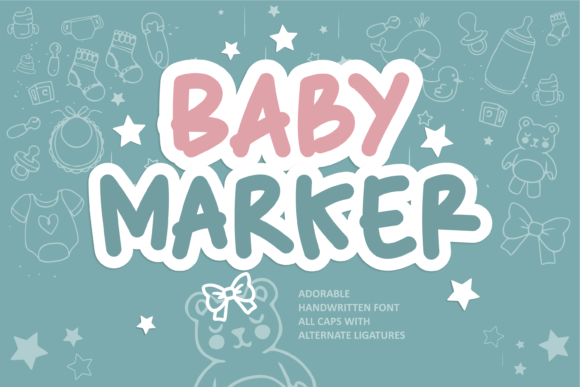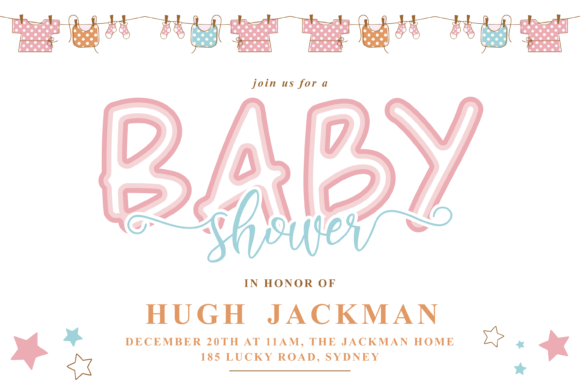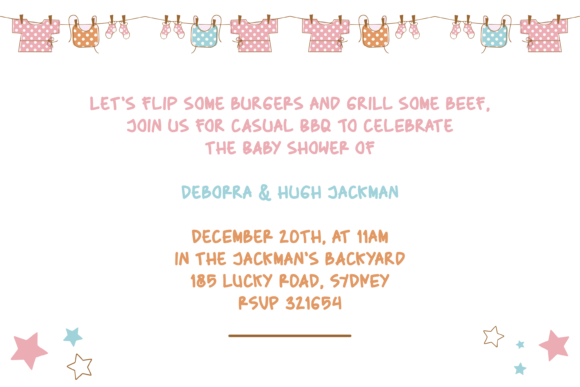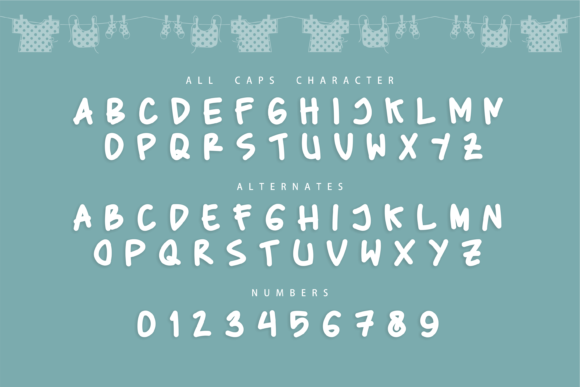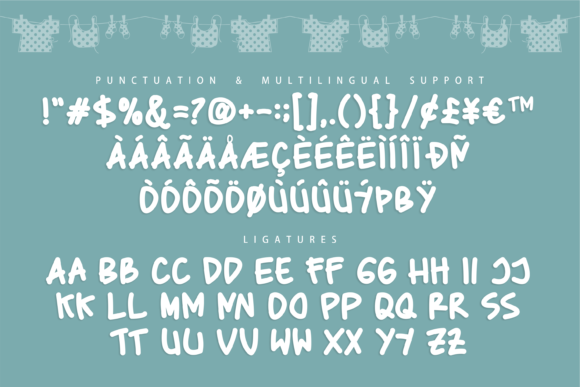
Baby Marker Font
About Baby Marker Font
Baby Marker is a delightful and whimsical handwritten font that adds a touch of playfulness and charm to your designs. With its unique and original style, this font is perfect for a variety of creative projects, from letterheads and titles to stationery and beyond.
The font’s quirky and hand-drawn appearance gives it a distinct personality that can bring a sense of fun and joy to your designs. It captures the carefree and imaginative spirit, making it a great choice for projects aimed at children, playful brands, or anyone looking to infuse their designs with a sense of whimsy.
Baby Marker’s irregular strokes and uneven letterforms create a sense of spontaneity and authenticity. It emulates the look of a marker or a child’s handwritten scrawl, adding a touch of handmade charm to your designs. The font’s lively and energetic vibe invites creativity and encourages a light-hearted approach to design.
Whether you’re designing invitations, greeting cards, or crafting projects, Baby Marker’s distinctive style will make your designs stand out. Its versatility allows it to adapt to various themes and styles, giving your projects a unique and personalized touch.
The font’s simplicity and legibility make it easy to read, ensuring that your message is effectively communicated. Its casual and approachable nature makes it suitable for both digital and print applications, allowing you to use it across different mediums with ease.
Incorporate Baby Marker into your design toolbox and unleash your creativity. Let its whimsical and playful nature inspire you to create eye-catching and memorable designs that leave a lasting impression. Whether you’re aiming for a cute and quirky aesthetic or adding a touch of imagination to your projects, Baby Marker is the perfect choice.